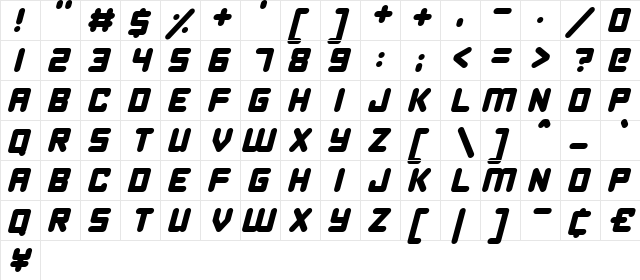
Happy Bomb Italic
| Designer | Darrell Flood |
Design Context for Happy Bomb Typeface
Happy Bomb offers clean, dependable letterforms without strong stylistic allegiance, making it a practical choice for designers who need flexibility. Its italic angle brings a sense of urgency and motion to the letterforms.
Pro Tip: Try Happy Bomb for annotation and caption copy alongside an upright companion — the contrast in angle creates a dynamic but ordered typographic system.